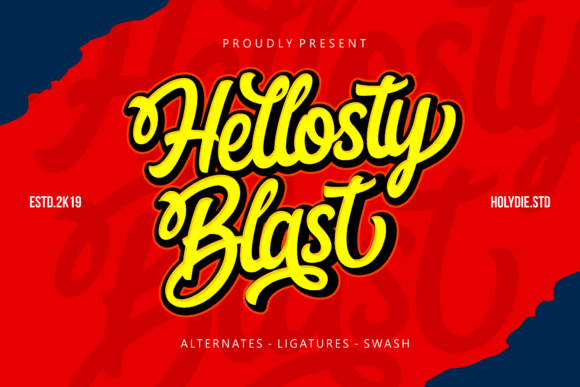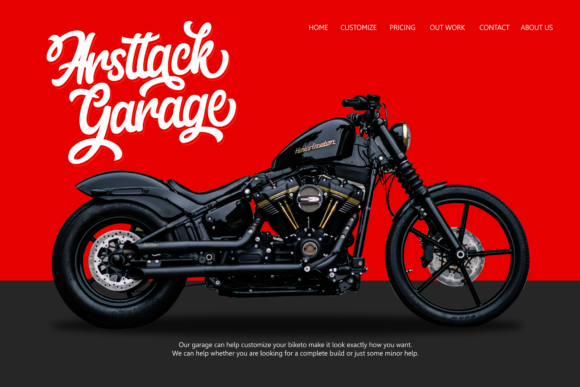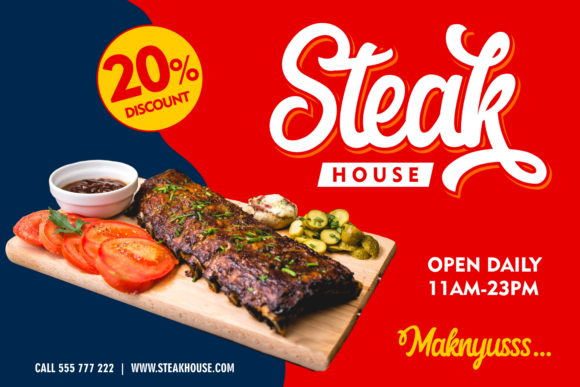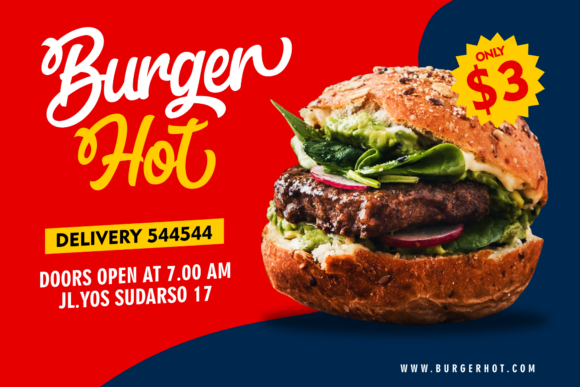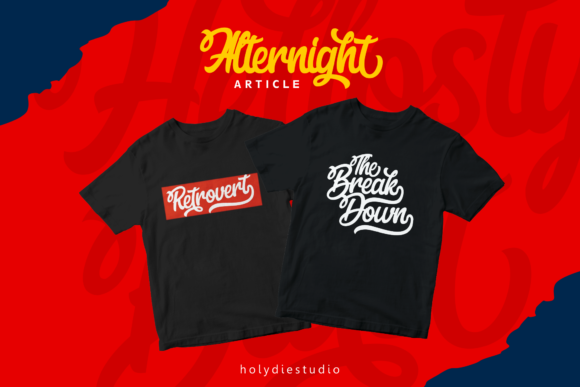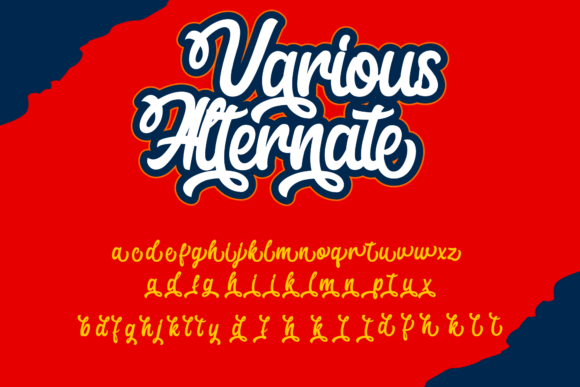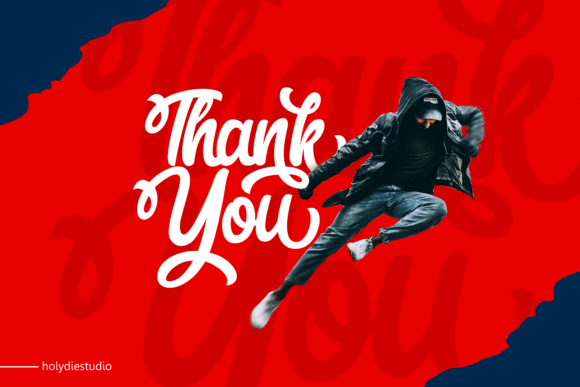
HomeScript FontsHellosty Blast Font Script Fonts Hellosty Blast Font FacebookXPinterestWhatsApp Hellosty Blast Font Poster 2 Hellosty Blast Font Poster 3 Hellosty Blast Font Poster 4 Hellosty Blast Font Poster 5 Hellosty Blast Font Poster 6 Hellosty Blast Font Poster 7 About Hellosty Blast Font Hellosty Blast is a fun script font with a vintage feel. Use it to turn any design idea into a true standout! DOWNLOAD ON CREATIVE FABRICAThis font is sold and delivered by Creative Fabrica. Font Canyon may earn a commission if you buy through this link. People also explored Require Cheribelle Font Richardine Script Font Break Coffee Font Modish Font Aneuk Font Hello Cat Font Woodle Font Xpart Font Lord Spirit Font 288 0 TagsHellosty Blast Font Previous articleDelliavirra FontNext articleBritish Times Font LEAVE A REPLY Cancel reply Comment: Please enter your comment! Name:* Please enter your name here Email:* You have entered an incorrect email address! Please enter your email address here Website: Save my name, email, and website in this browser for the next time I comment. Personal Use Free Evensong Hollow Personal Use Free Read more about this font Vanchrome Personal Use Free Read more about this font Angelia Personal Use Free Read more about this font Ailand Personal Use Free Read more about this font BLOG Top 10 Handwritten Fonts That Elevate Your Designs Top 10 Handwritten Fonts That Will Elevate Your Designs Handwritten fonts bring a warm, personal touch to every creative project. Whether you're designing logos, invitations,... Using Fonts in Digital Marketing: Tips to Strengthen Your Brand Identity Best Fonts for YouTube Videos: Make Your Thumbnails Stand Out Free Fonts Risk: Why Free Fonts Can Be Dangerous for Designers